Great graphic design is powered by great font selection. But picking great fonts is a challenge for most people. Luckily, Canva has made choosing great fonts for your designs much easier. In this tutorial, our team of design experts will cover the best comic fonts in Canva.
What are Comic Fonts?
Comic fonts are a type of typography often used in comic books, graphic novels, cartoons, and other similar media. These fonts are generally intended to be fun, expressive, and sometimes dramatic to match the art and tone of the stories they are used in. Here are some of their characteristics:
- Hand-drawn Appearance: Many comic fonts mimic the look of traditional hand-lettering, even if they are digitally created. This gives them a personalized, casual, and playful look.
- Bold and Thick Strokes: Comic fonts typically have bold, thick lines and strokes which makes them stand out and easy to read, even when printed on colorful or cluttered backgrounds.
- Variable Letter Shapes: Unlike more formal typesets, comic fonts often have a high degree of variation in letter shapes and sizes, which helps to convey emotion and tone.
- Exaggerated Characters: The characters in comic fonts are often exaggerated with unique and quirky designs. This helps to give them a playful and fun feel.
- Sound Effects Lettering: Comic fonts often include special styles or characters for representing sound effects (e.g., “BOOM”, “POW”). These are typically large, bold, and stylized.
- Use of All Caps: In traditional comic book lettering, it’s common for all of the letters to be in capitals. This is in part because it’s easier to fit capital letters into the square word balloons used in comics.
- Irregular Baselines: Unlike more traditional fonts where all characters sit on a regular baseline, characters in comic fonts often have an irregular baseline which helps to give them a more dynamic and spontaneous feel.
- Expressive: Perhaps the most important characteristic of comic fonts is their expressiveness. Through the use of bold strokes, varied letter sizes, and unique character design, comic fonts can help to convey a wide range of emotions and tones, making them an integral part of the storytelling process in comics.
Best Comic Fonts in Canva
1. Sriracha
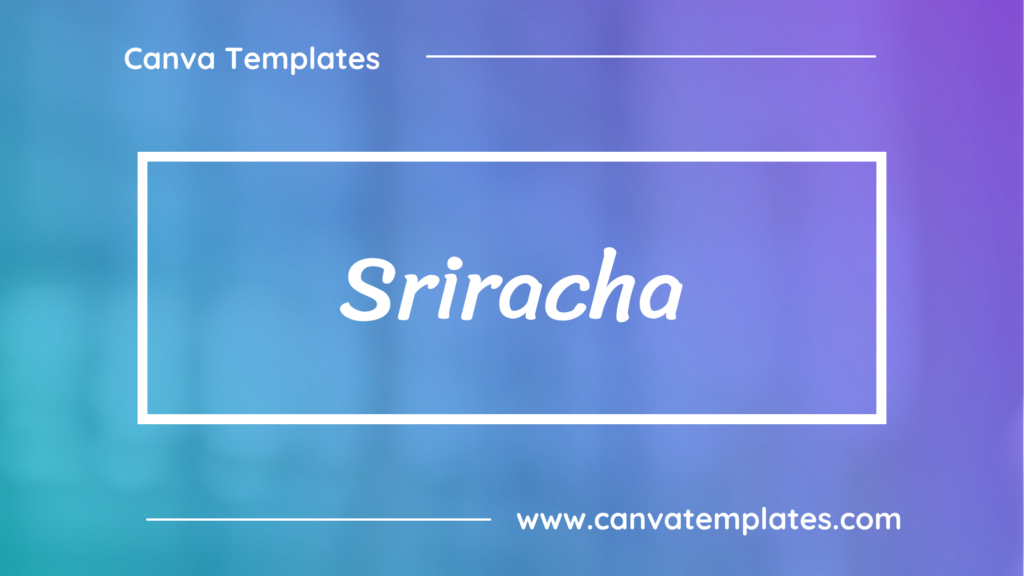
Sriracha is a handwriting-style typeface that is legible and clear, despite its loose, casual aesthetic. Its characters have a slightly condensed shape and upright stance, with a uniform stroke width that gives it a consistent rhythm.
2. Comic Sans
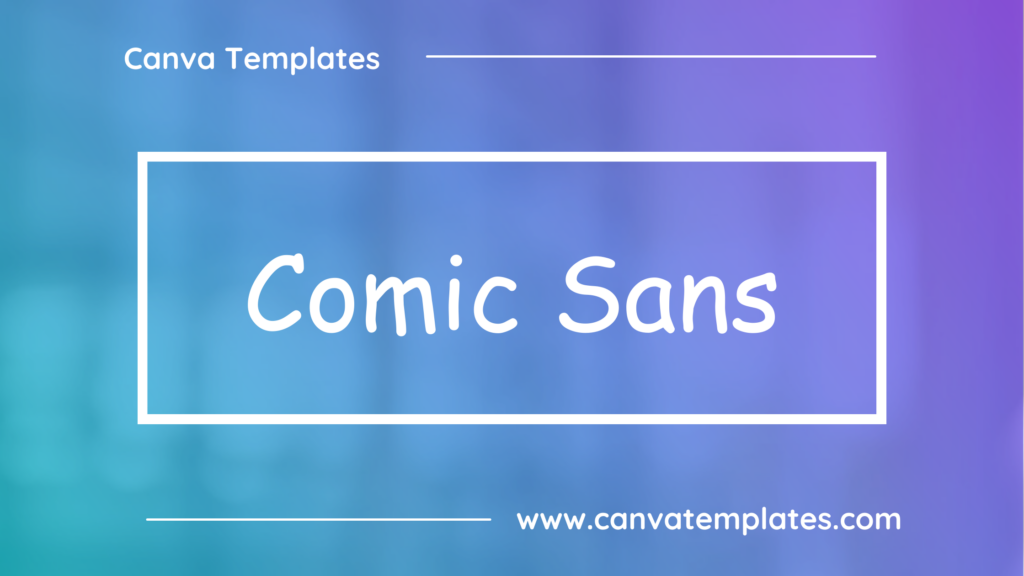
Comic Sans is a sans-serif casual script font designed by Vincent Connare and released by Microsoft in 1994. It was intended to mimic comic book lettering and is known for its informal and playful feel. Despite its initial popularity, it has become controversial due to its overuse in inappropriate contexts.
3. Some Time Later
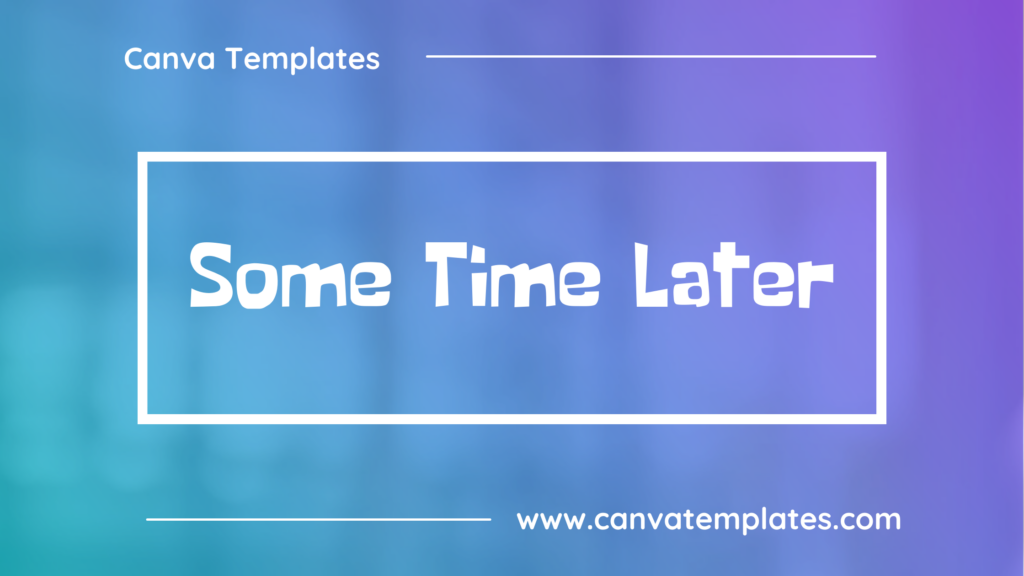
Some Time Later is a bold font that is inspired by the title cards of the classic cartoon “SpongeBob SquarePants.” It’s playful and fun, with irregular shapes and sizes for different letters, giving it a unique, hand-drawn appearance.
4. Freckle Face
Freckle Face is a fun and playful font with a child-like aesthetic. Its design is simple and straightforward, with each character appearing as if it’s been quickly and lightly hand-drawn. It’s often used for headlines or other large text where an informal, light-hearted feel is desired.
5. Storybook
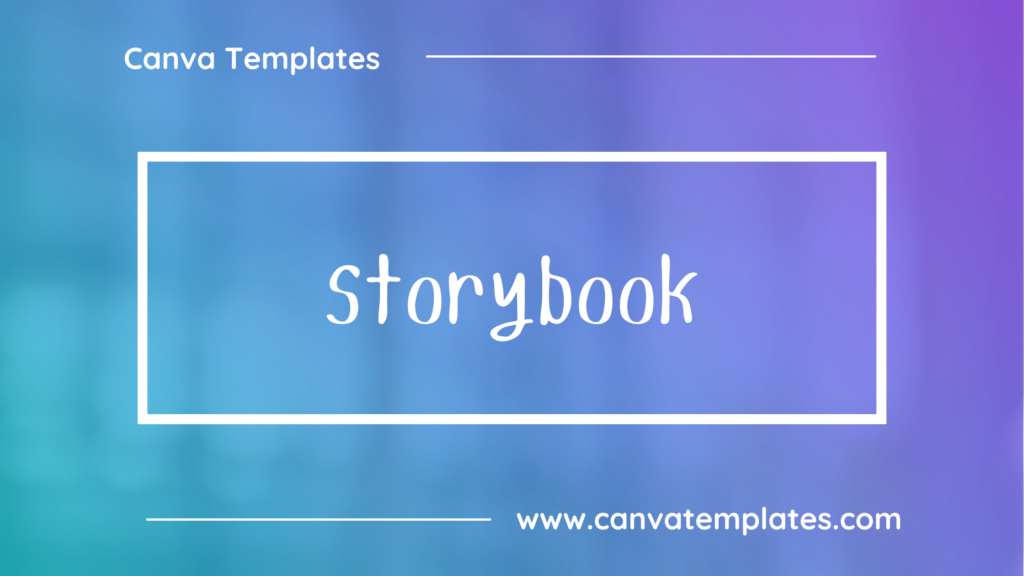
Storybook is a decorative script font. Its letters often have flowing, exaggerated strokes and it is reminiscent of old-style book covers or fairy tale illustrations. It’s often used for headlines and other large text where an ornamental, old-fashioned feel is desired.
6. Lilita One
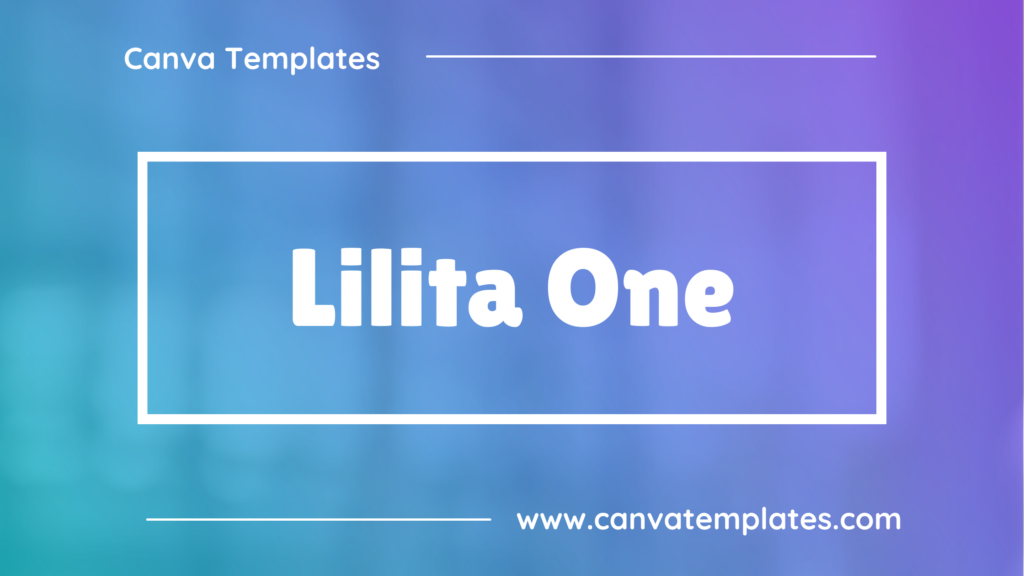
Lilita One is a bold, chunky font with a playful and somewhat cartoony feel. It features a mix of rounded and rectangular shapes, giving it a unique, stylized look.
7. Crafty Girls
Crafty Girls is a playful and whimsical font that mimics the look of casual handwriting. The letters are tall and narrow, and they lean to the right as if written quickly with a loose hand.
8. Gochi Hand
Gochi Hand is a handwritten font with a casual and playful feel. It’s characterized by its irregular shapes and sizes, which give it a spontaneous, hand-drawn appearance.
9. Lacquer
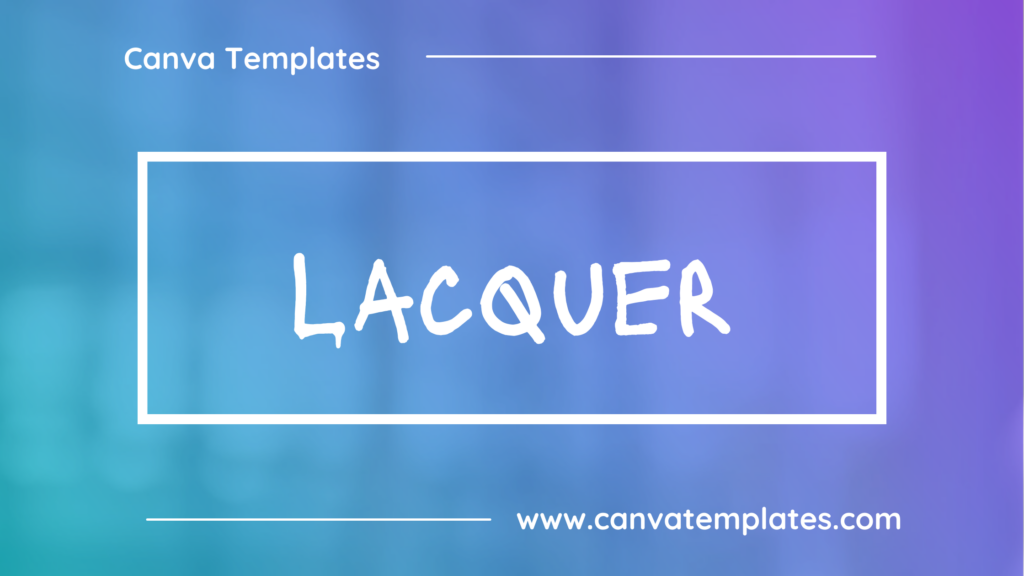
Lacquer is a bold, sans-serif typeface that is all about high impact. Its heavy weight and compact letterforms make it perfect for headlines and other large text.
10. Mansalva
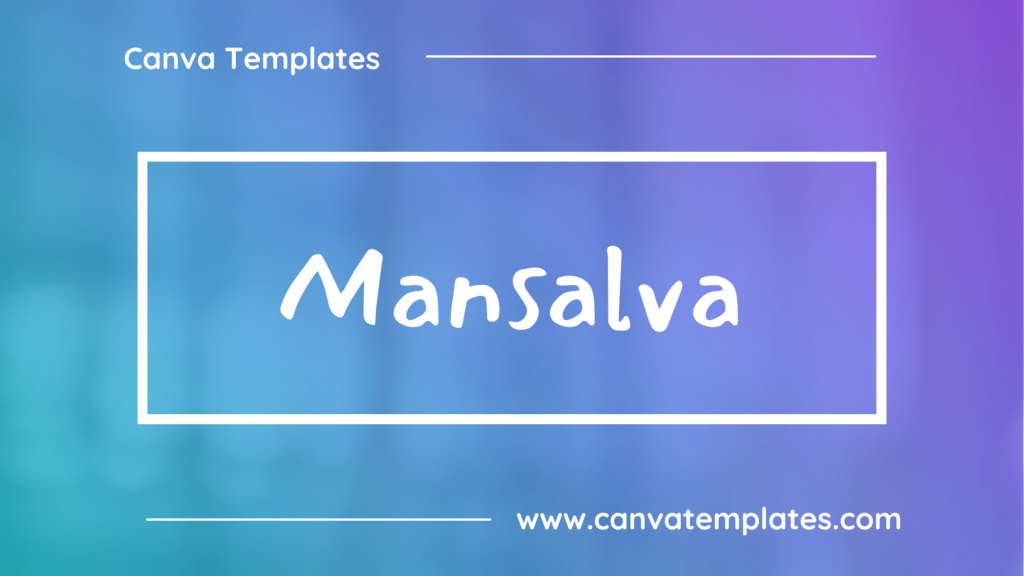
Mansalva is a playful and casual font that has a hand-drawn feel. It features slightly irregular shapes and sizes that give it a spontaneous and whimsical appearance.